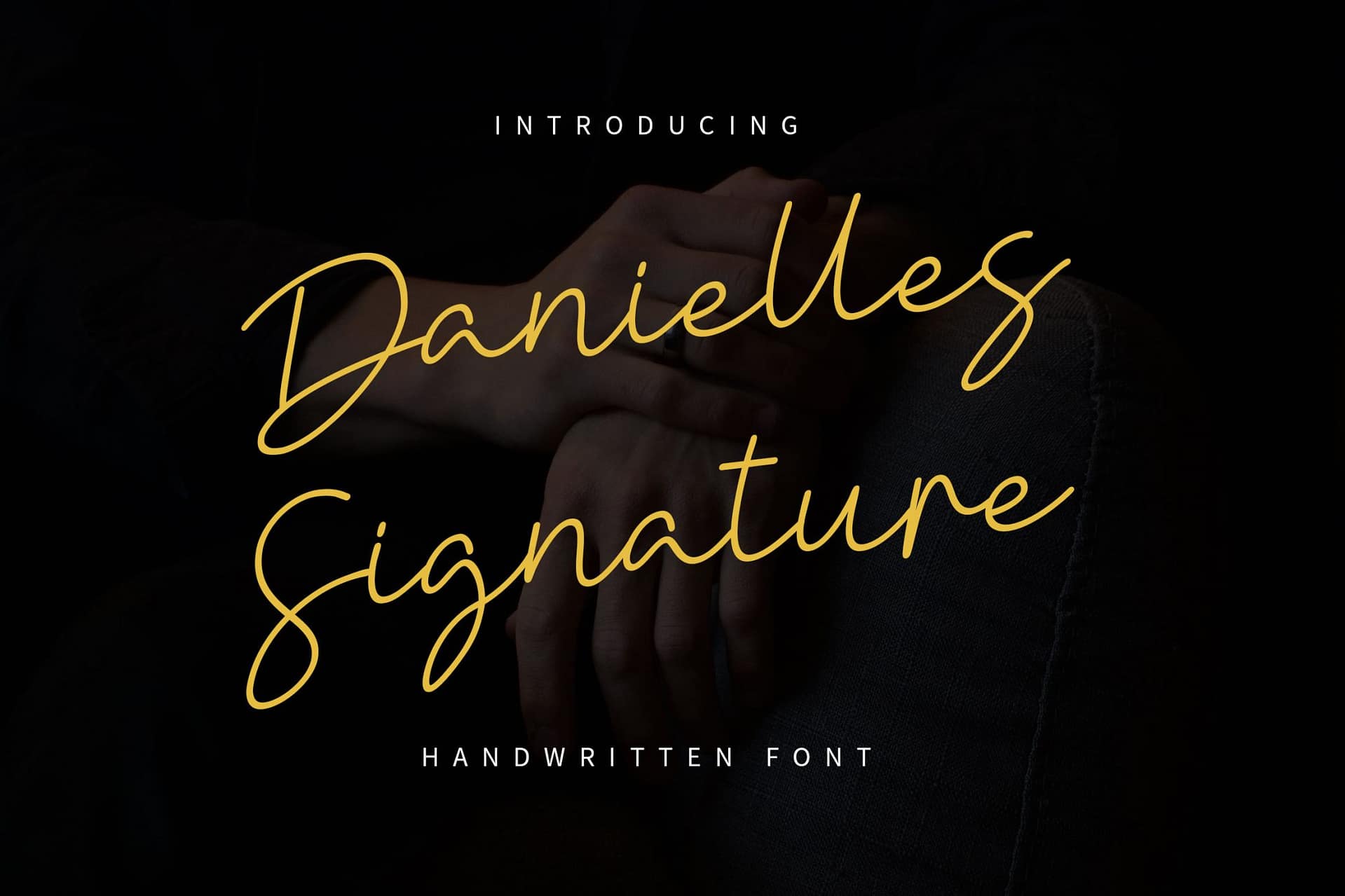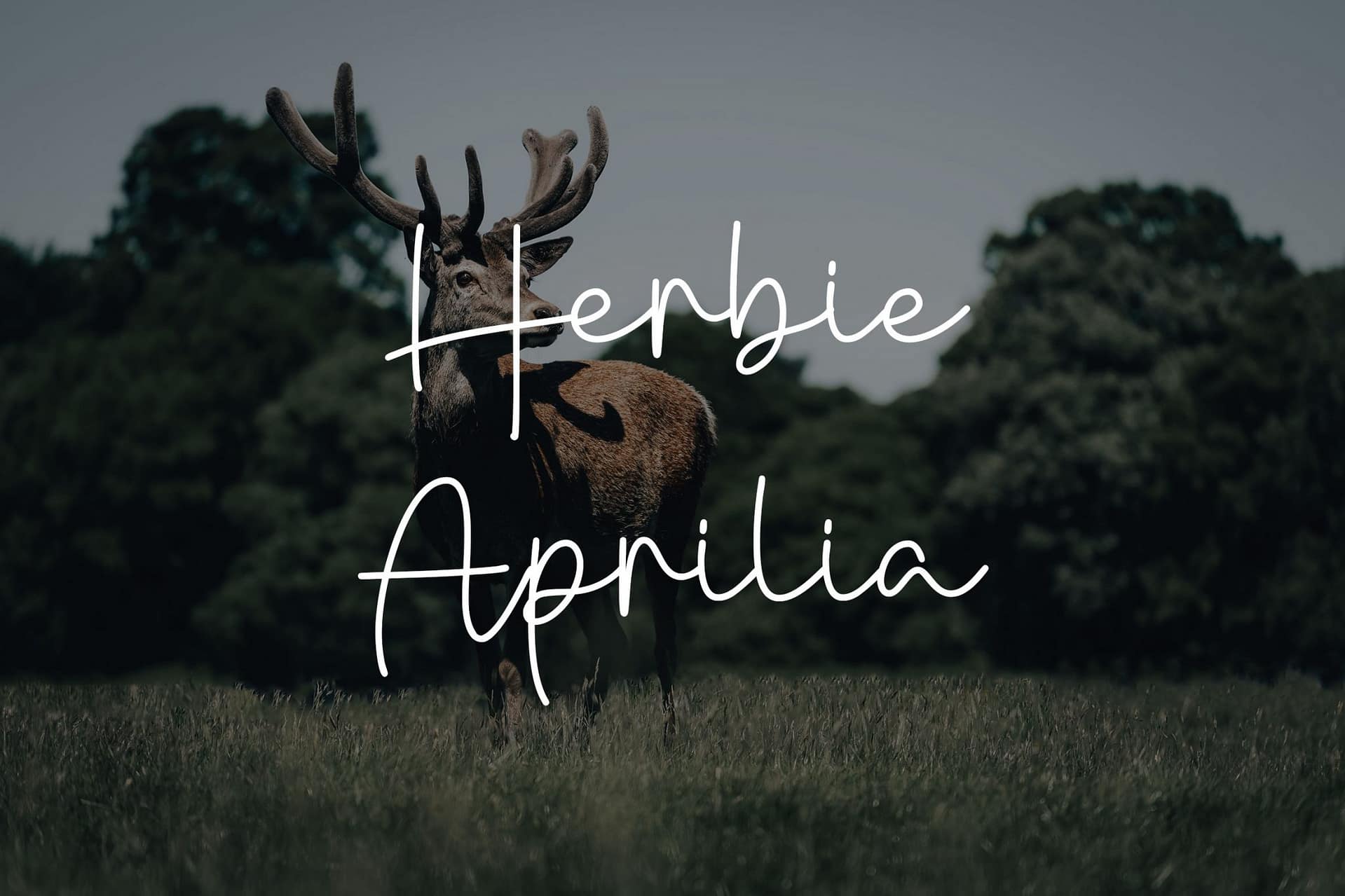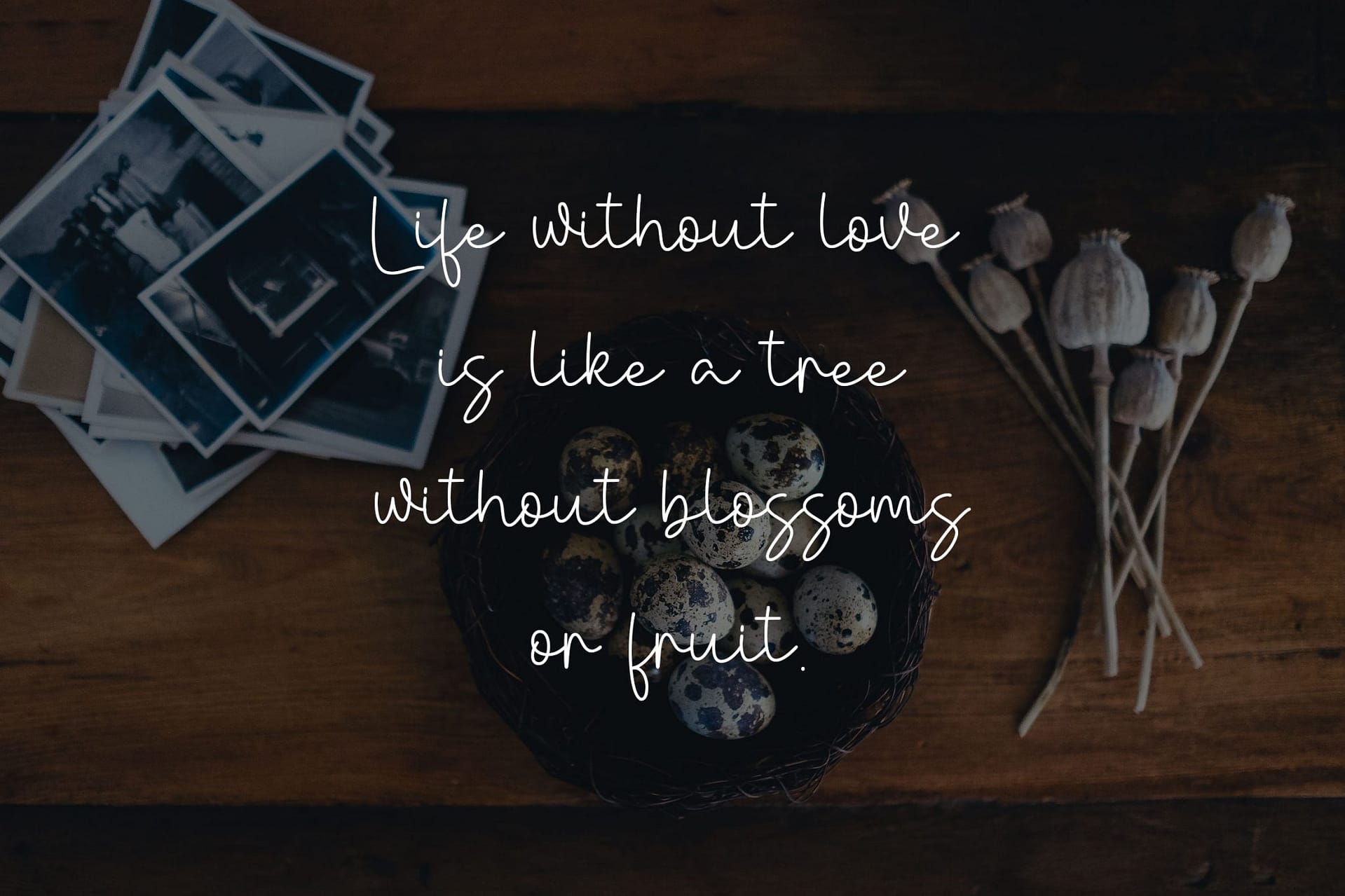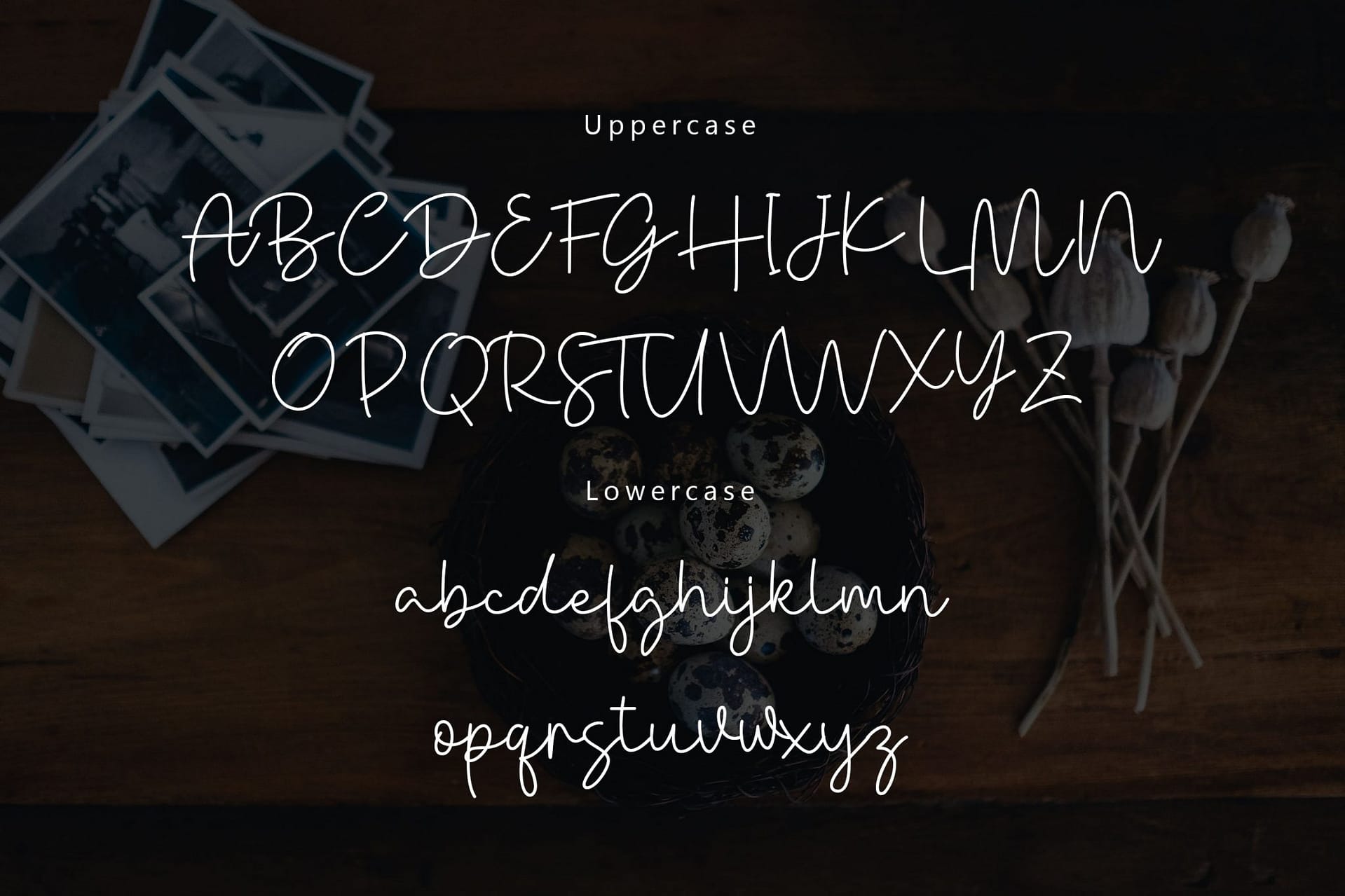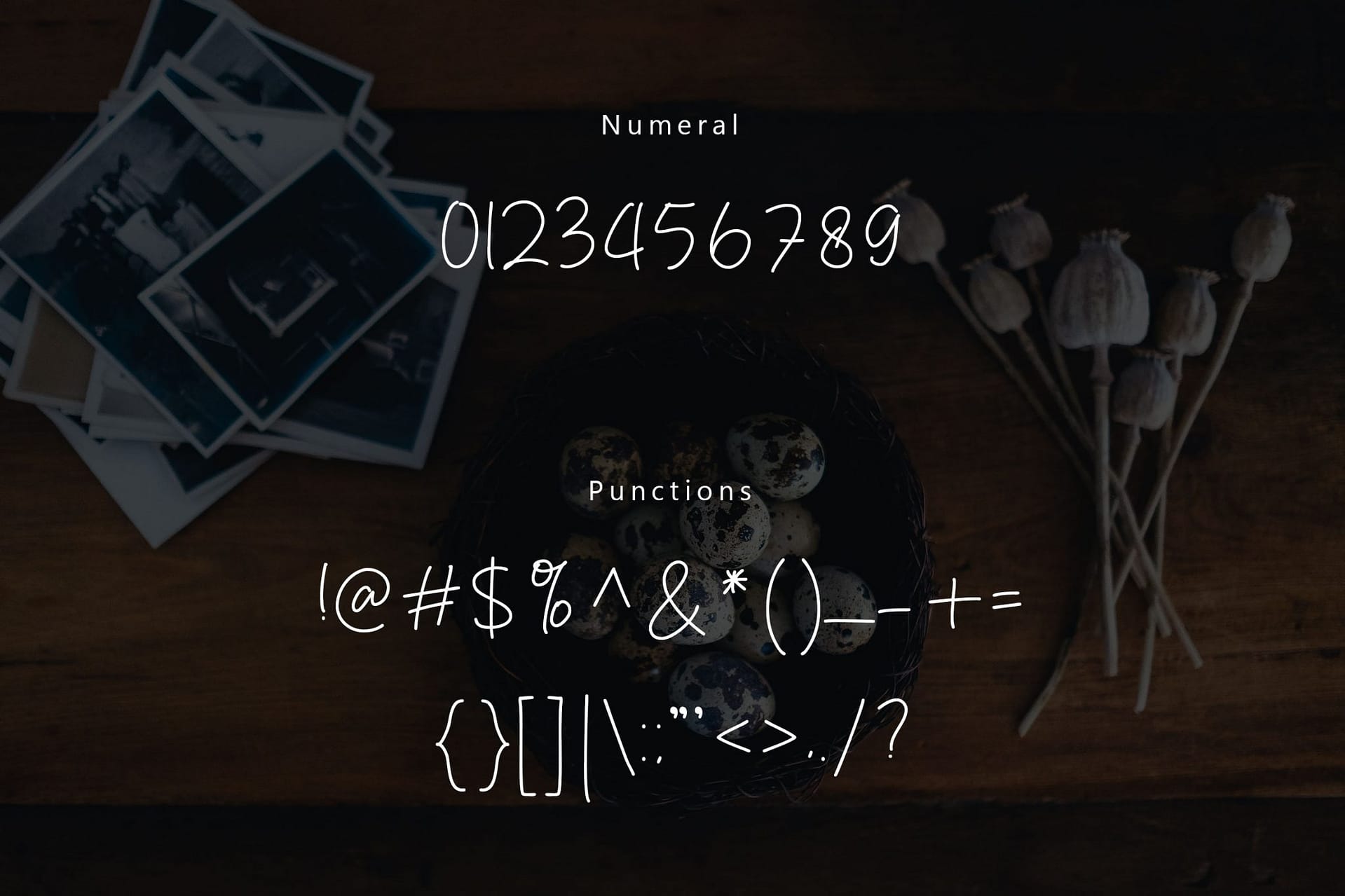
Danielle Signature - Handwritten Font
Danielle Signature font. It has a elegant, classy look and beauty. It’s a great font for fashion, apparel projects, signature, album cover, logo, branding, magazine, social media, & advertisements, but also works great for other projects.
Highlight :
• Basic Latin A-Z and a-z
• Numbers
• Punctions